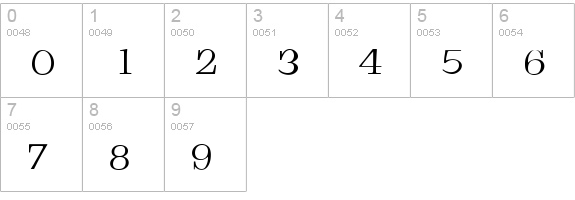
Parade-Normal is the standard, neutral variant in the Parade typeface family \xE2\x80\x94 well suited to general body text, paragraphs, and standard typographic work.
Introducing Parade-Normal font, a captivating typeface that effortlessly combines elegance with versatility. With its timeless appeal, this font is perfect for a wide range of creative projects, from branding and advertising to editorial designs and beyond. Parade-Normal font boasts a harmonious balance between classic and modern elements, making it an essential addition to any designer's toolkit. Its clean and refined letterforms exude sophistication, while its slight curves and subtle details add a touch of individuality and charm. But what truly sets Parade-Normal font apart is its accessibility. This font is freely available to download at FontsMarket.com, ensuring that anyone can enjoy its beauty and functionality without the burden of cost. Whether you're a professional designer or a creative enthusiast, this font empowers you to bring your visions to life without breaking the bank. The versatility of Parade-Normal font is further enhanced by its extensive character set, including uppercase and lowercase letters, numerals, punctuation marks, and a variety of special characters. This comprehensive range allows you to effortlessly customize your designs, ensuring that every project stands out with a unique and personal touch. From elegant wedding invitations to eye-catching logos, Parade-Normal font is the perfect choice for those seeking a font that effortlessly captures attention and leaves a lasting impression. Its legibility and timeless appeal make it suitable for both print and digital applications, ensuring that your designs shine across various platforms. So why wait? Take advantage of the opportunity to download Parade-Normal font for free at FontsMarket.com and unlock a world of creative possibilities. Elevate your designs with this exquisite typeface and let your creativity soar to new heights.